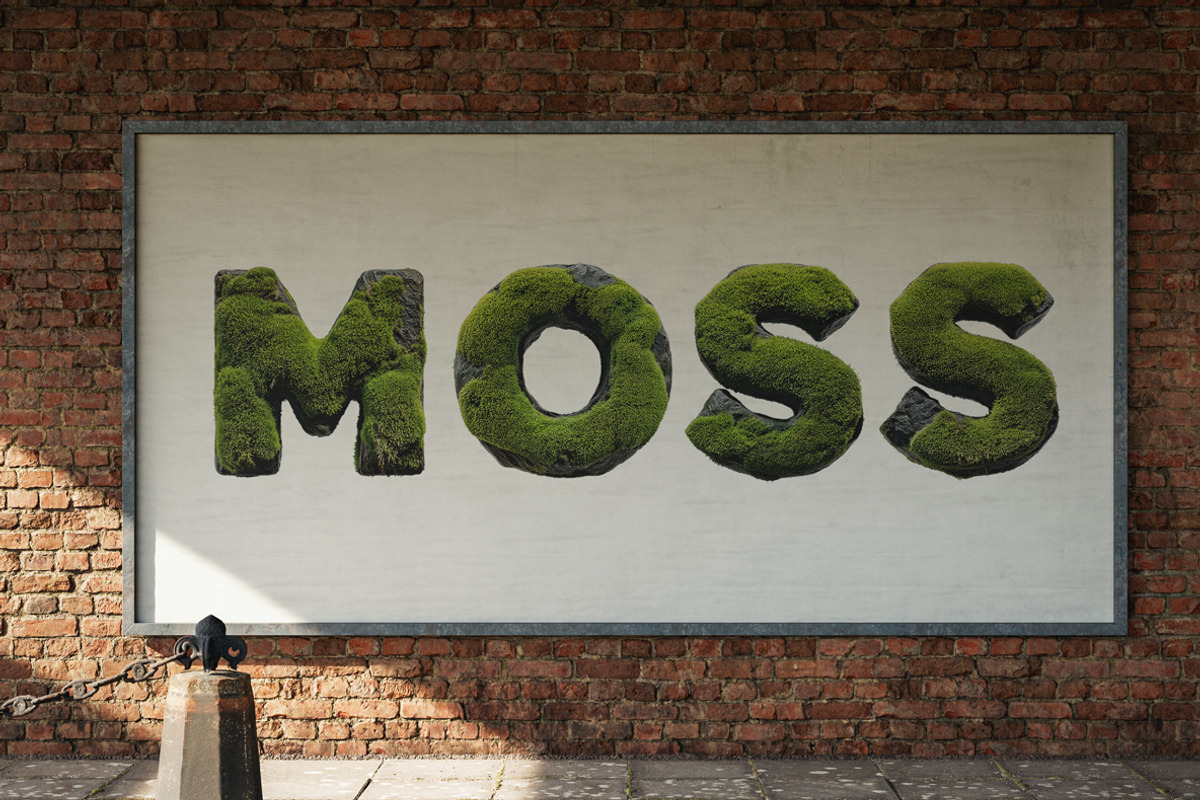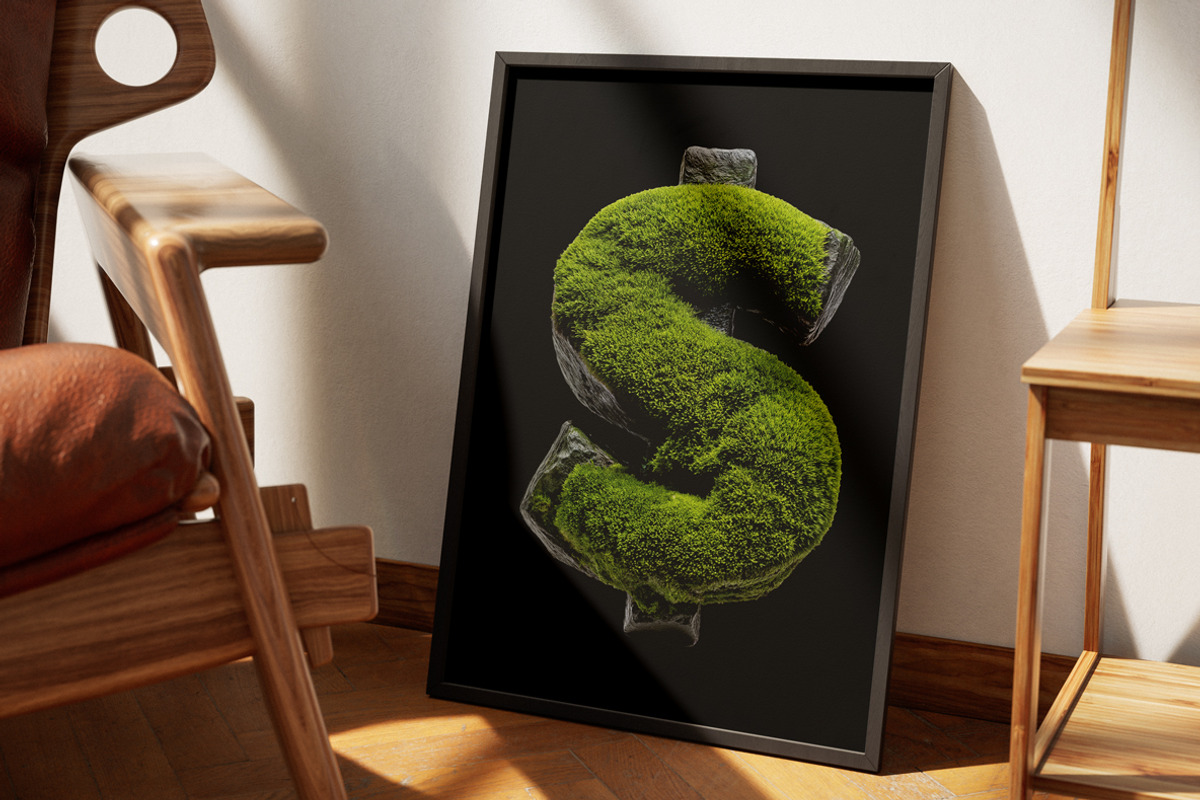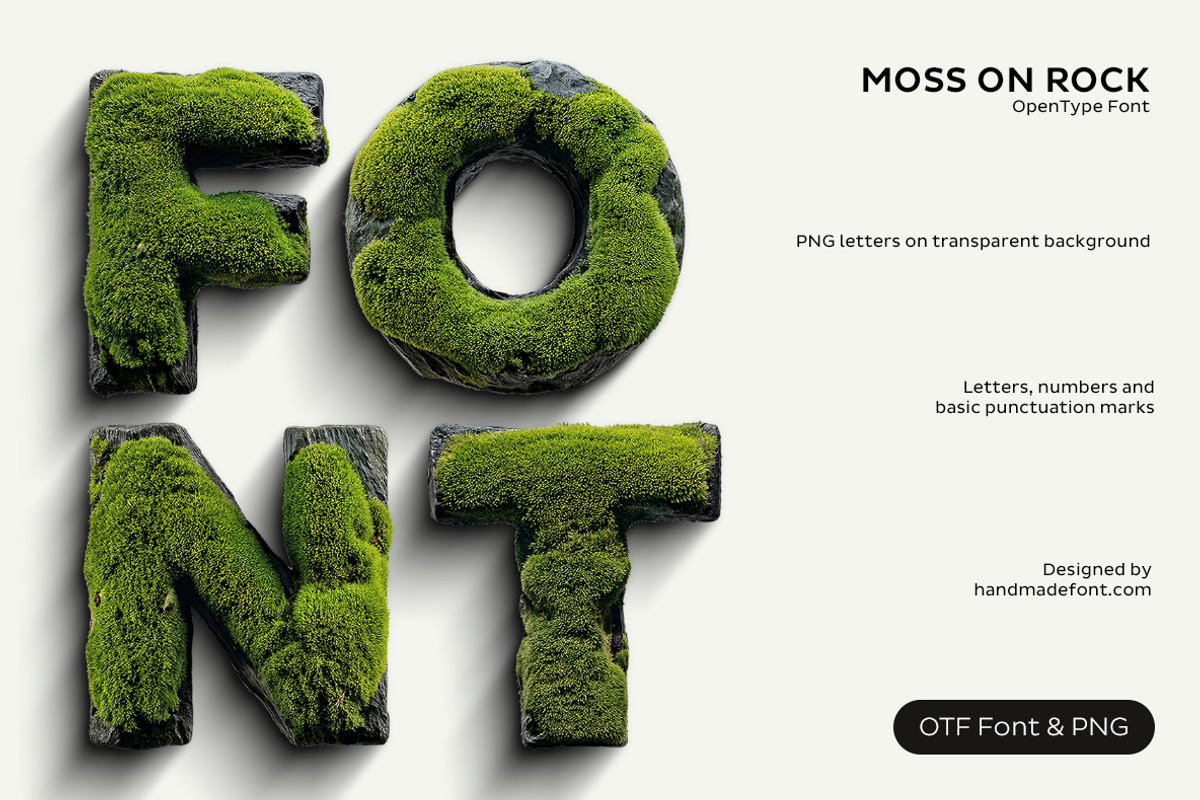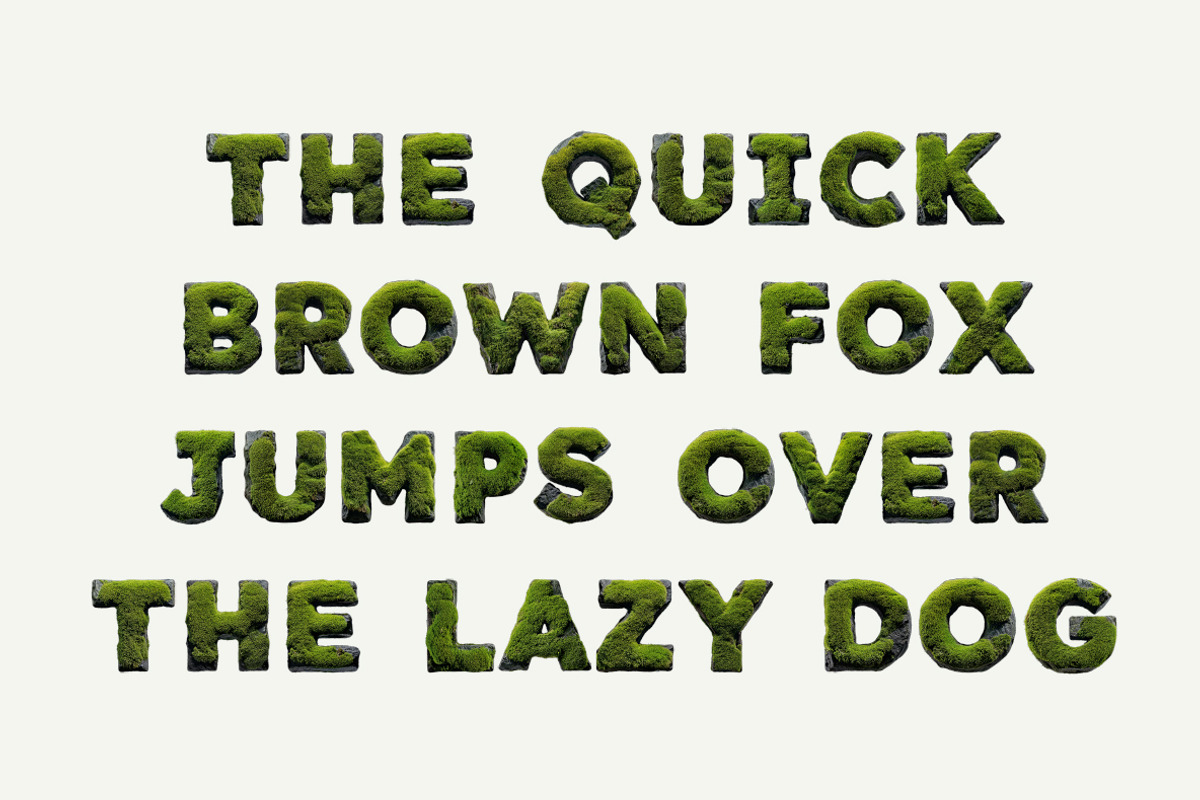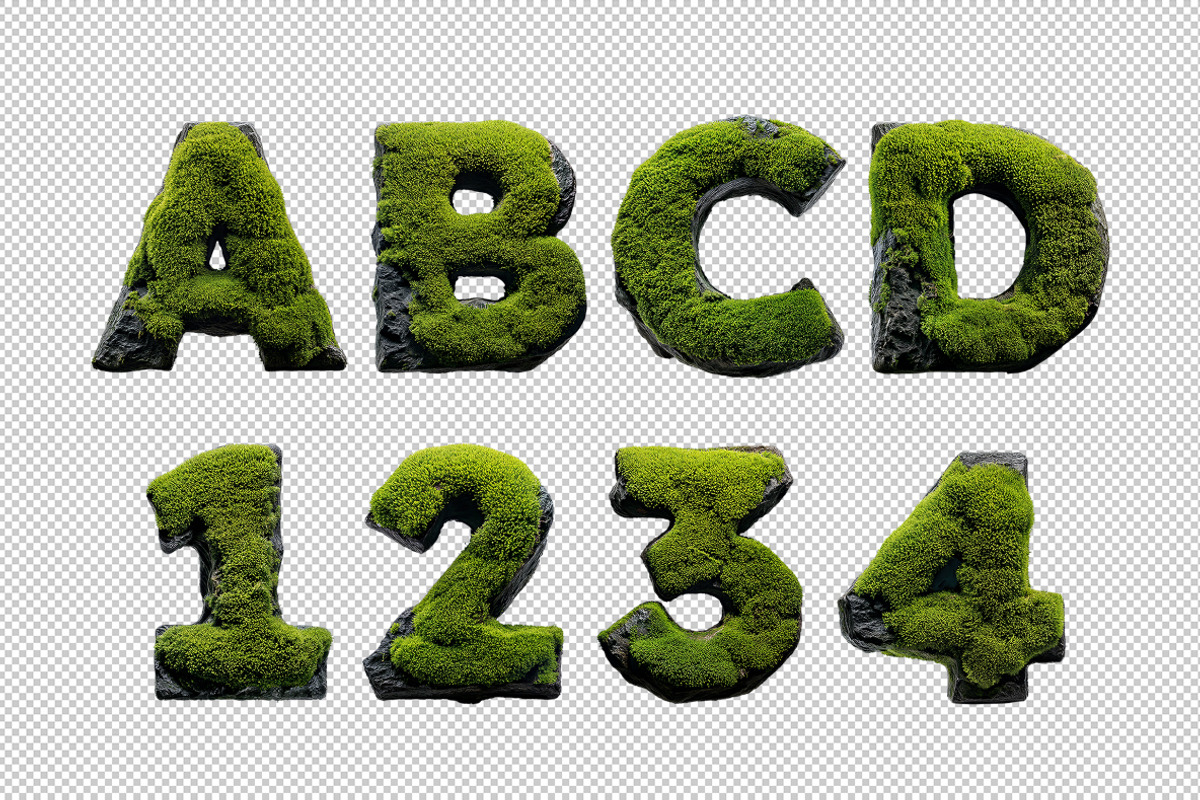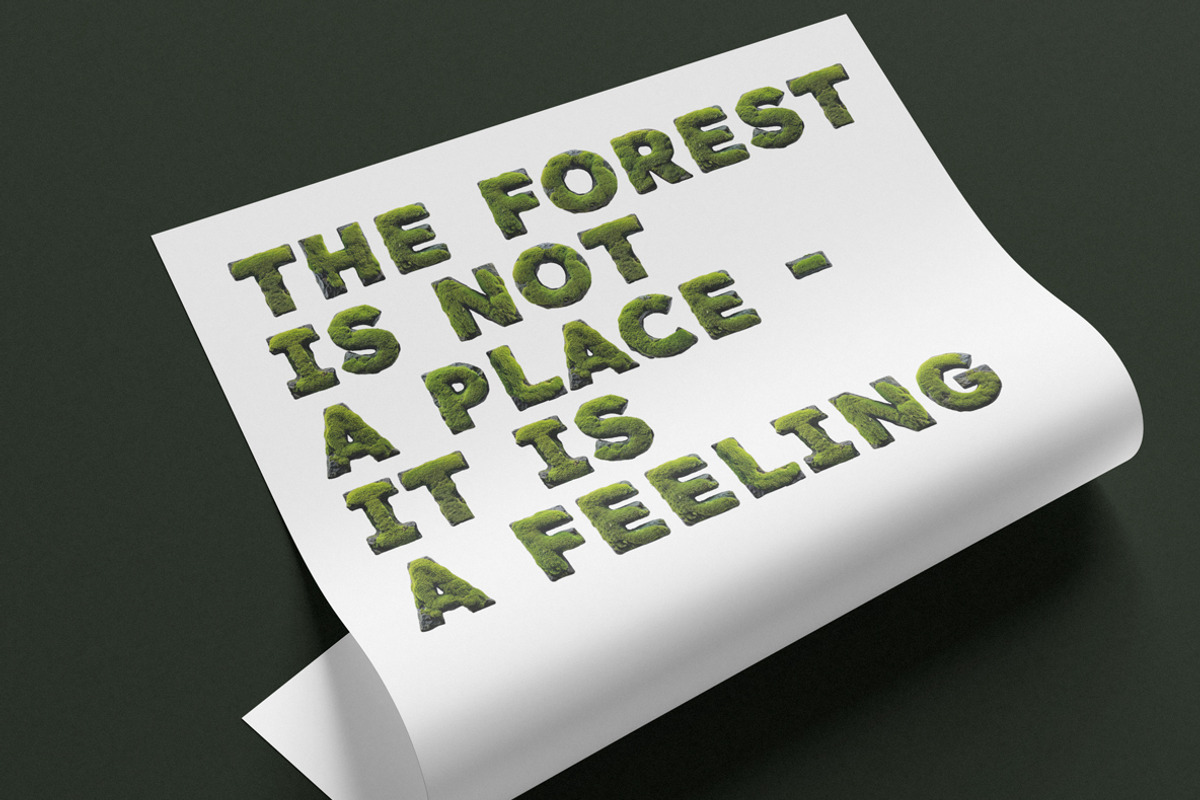
Moss on Rock Font
The Moss on Rock Font is a unique, organic display typeface that blends the rugged texture of natural stone with the soft, lush beauty of moss. Each letter is crafted to look as if it has grown directly from the earth, combining strength and serenity in a striking visual style. Perfect for eco-friendly branding, nature-inspired projects, environmental campaigns, or artistic designs, this font captures the harmony between durability and life. Its bold presence makes it ideal for titles, posters, and creative layouts that want to evoke the raw beauty of nature while maintaining a modern, eye-catching aesthetic.
A high definition OpenType Font. Contains uppercase characters, numerals and basic punctuation. (Draw height roughly 800 pixels). All letters and glyphs that comprises this font you can see on the preview.